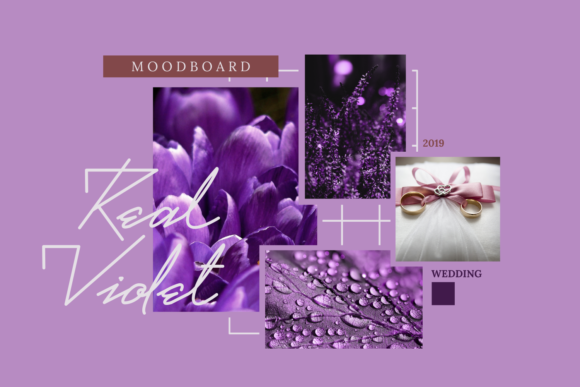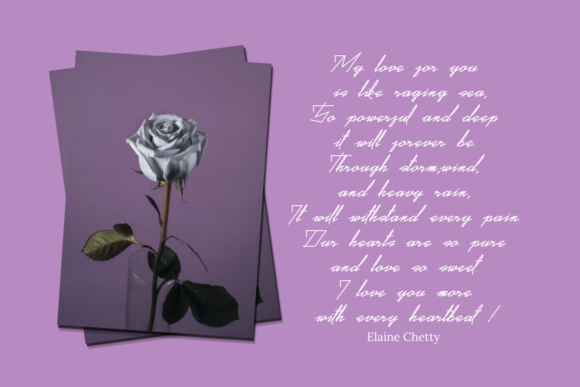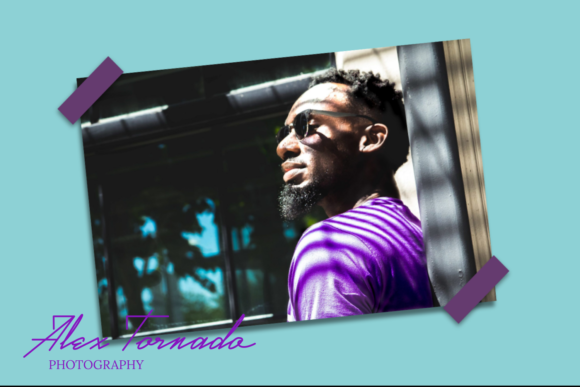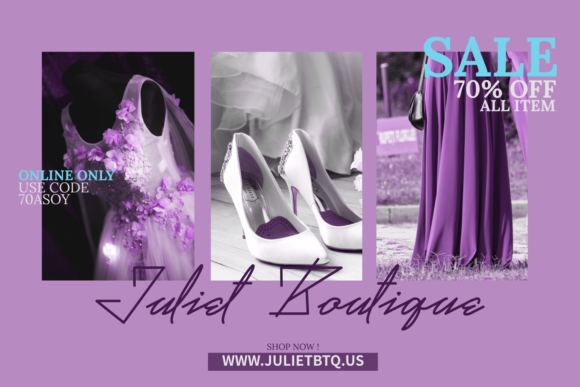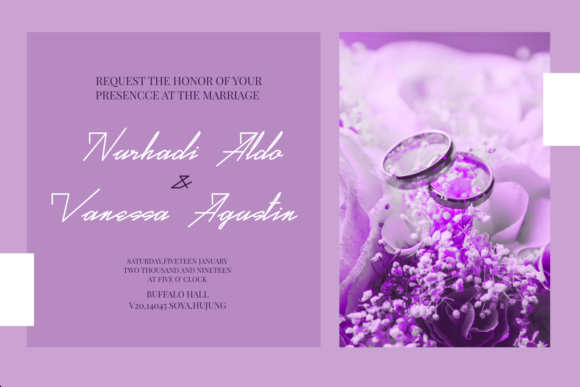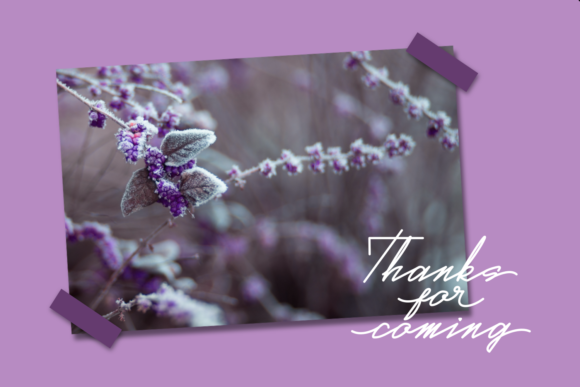
Real Violet Font – Free Download
Introduction to Real Violet Font
The Real Violet is an amazing signature font.
It has an elegant style and will give a handwritten touch to ever design Itโs perfect for mood-boardโs, wedding invitations, private signature quotes, watermarks, logos, flyers, posters, letterheads, apparel, and much more.
Real Violet Font offers exceptional quality and versatility, making it a valuable addition to your design toolkit. Whether you’re creating for personal projects or commercial use, Real Violet Font delivers professional results.